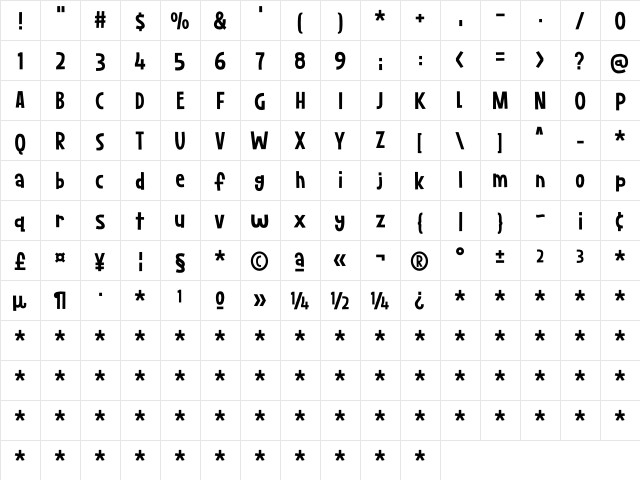
Party Crush DEMO Regular
Design Context for Party Crush DEMO Typeface
Party Crush DEMO takes a measured approach to typography — its balanced proportions and neutral character make it a reliable workhorse for both digital and print work.